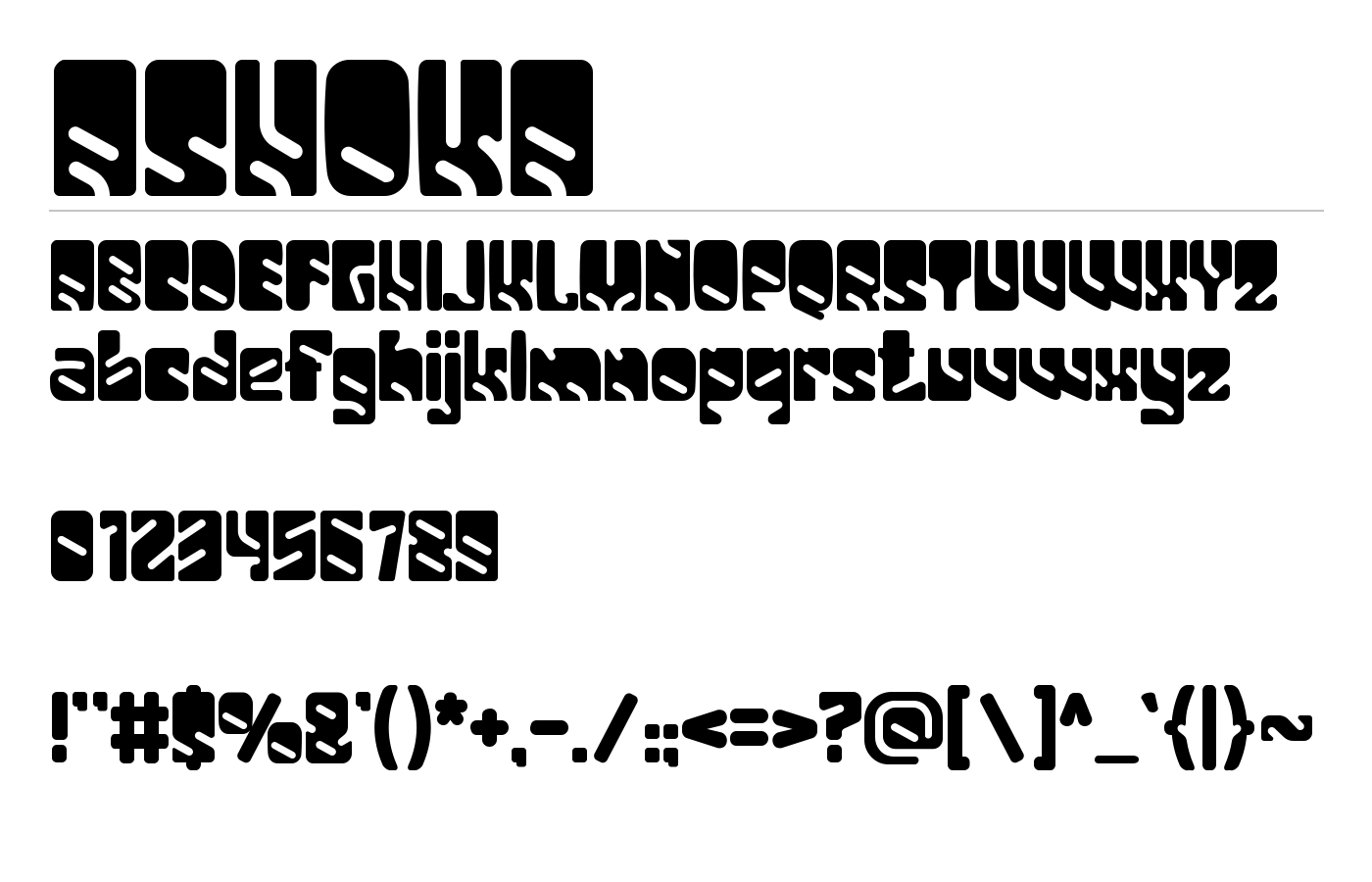
ASHOKA is a bold, geometric sans serif font with a strong, modern presence and a unique stencil-like design that features rounded corners and intriguing cutout details. Its compact width and medium-high x-height make it highly readable while exuding a futuristic, playful vibe suited for striking headlines, logos, and creative branding that aim to stand out with a distinctive, tech-inspired personality. This font works well in digital media and packaging where a bold, contemporary style is desired.
ASHOKA Font
About ASHOKA Font